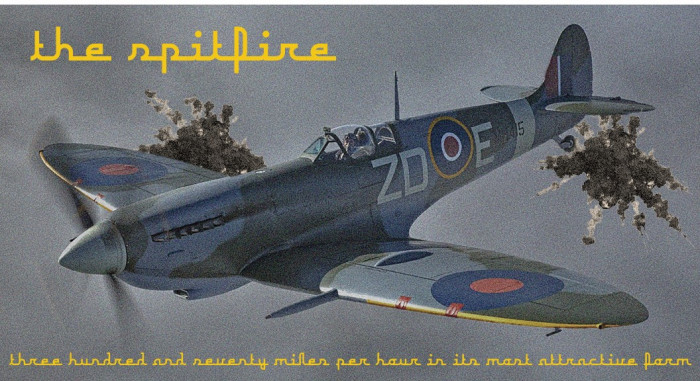
• First of all, I need to give credit where credit is due. This font is based on the Maserati logo and regular cursive. Secondly, this font is only lowercase for right now. I've played with some symbols and uppercase but it will probably stay like this. It's mainly intended for use as a display font and not in conjunction with any other glyphs. Suggestions Welcome.